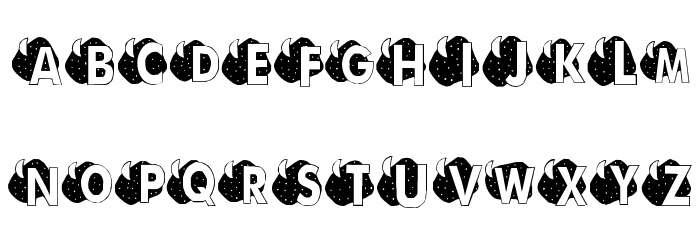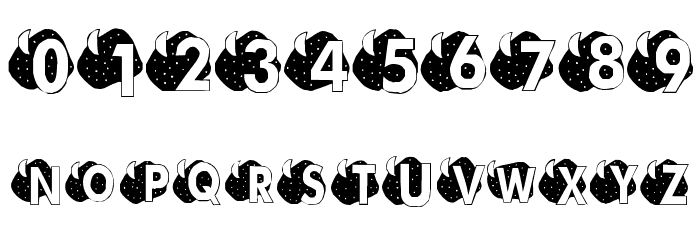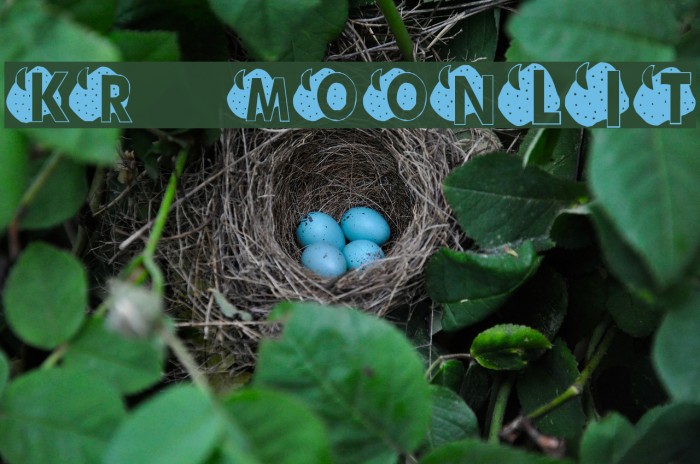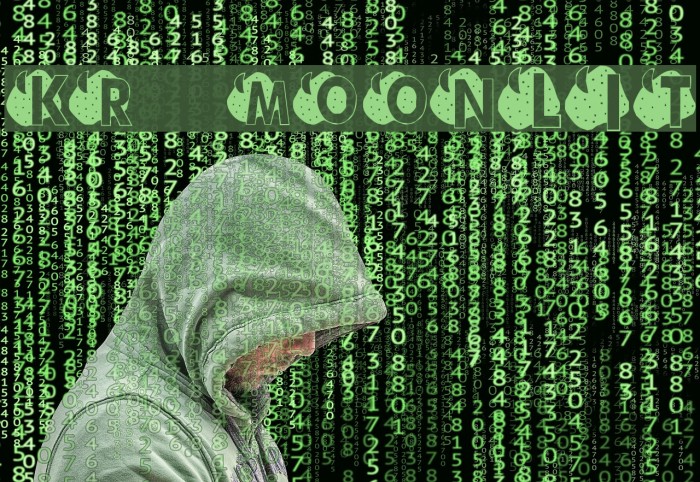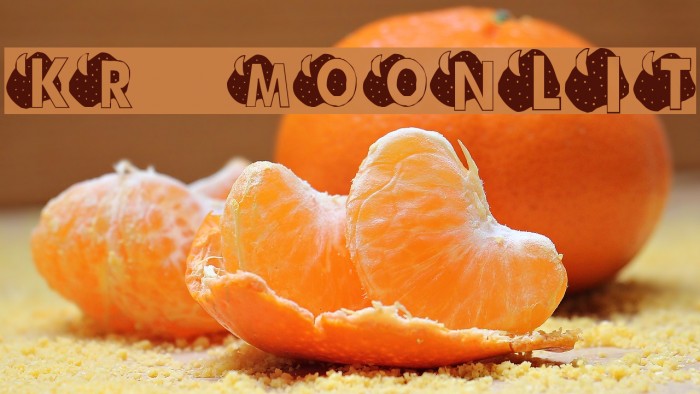
KR Moonlit Font
This font features a unique and playful design with each character partially obscured by a stylized moon shape, creating a whimsical and celestial theme. The letters are bold and sans-serif, with a consistent weight and width, making them easily readable despite the decorative elements. The moon shapes are filled with a dotted pattern, adding texture and visual interest. This font is ideal for projects that require a fun and eye-catching aesthetic, such as children's books, party invitations, or themed event posters. The overall style is modern and decorative, with a touch of fantasy.
A bold, playful font with moon-themed decorative elements and a modern style.
- Proposed Projects: Ideal for children's books, party invitations, themed event posters, and playful branding.
- Overall Style: Modern, Decorative